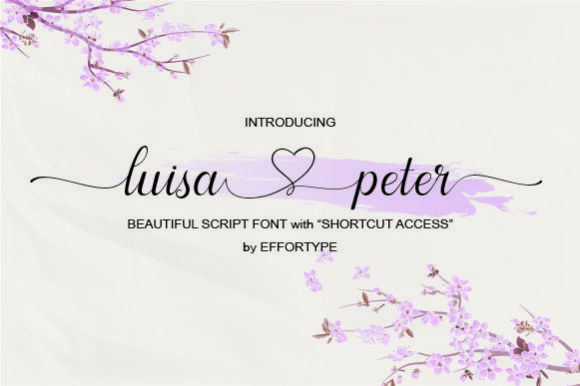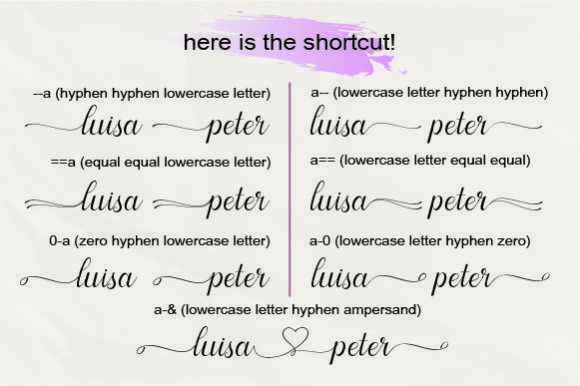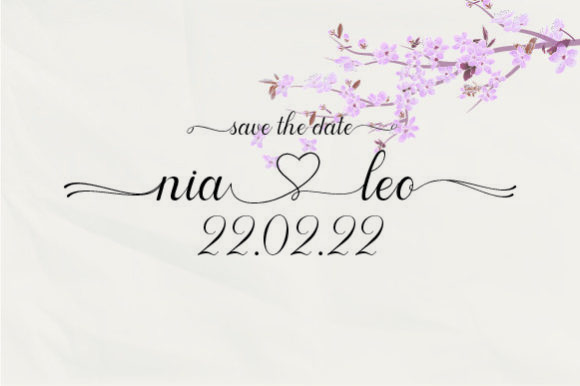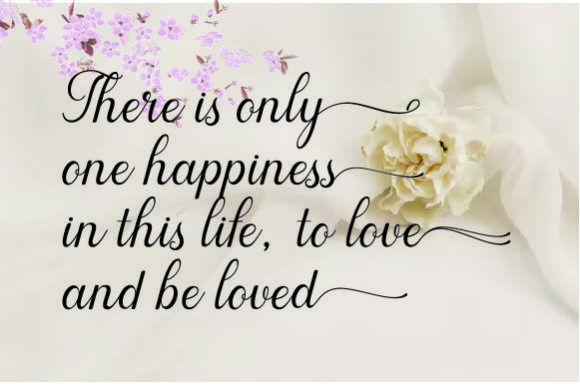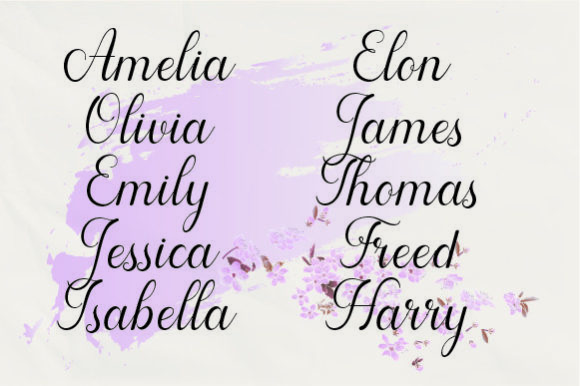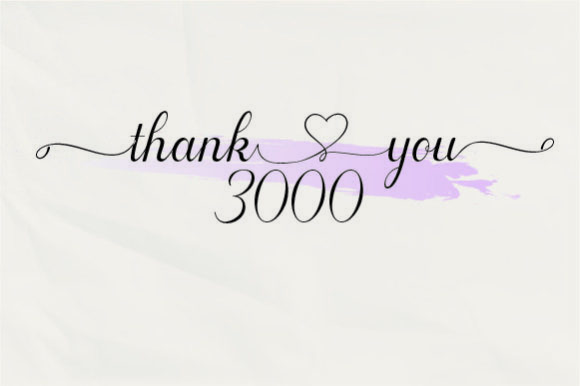
Luisa and Peter Font
About Luisa and Peter Font
Luisa and Peter is a romantic and light handwritten font with a unique feel and a stunning impact. It will add a luxury spark to any design project that you wish to create!